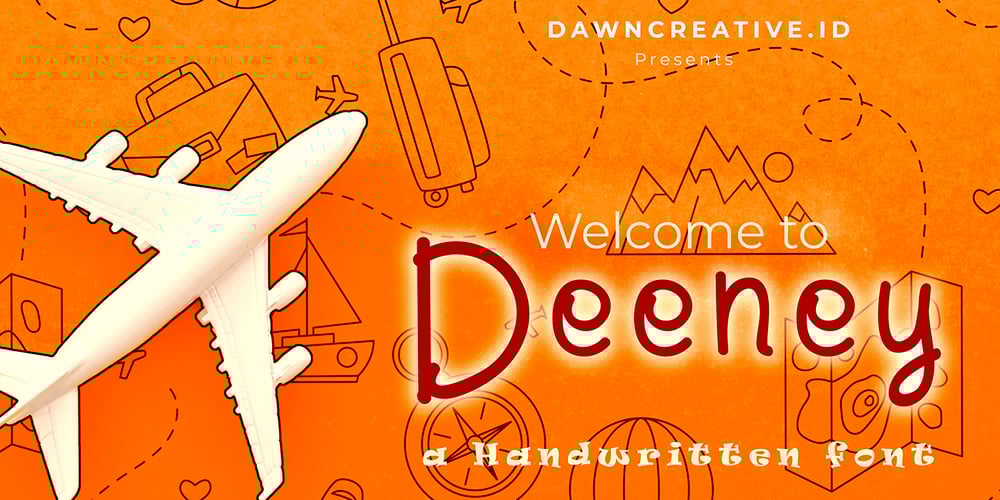
Deeney
Deeney font
Deeney Font Family was designed by Fajar Rachmadi Priyambada and published by DawnCreative.Id. Deeney contains 1 styles and family package options. Deeney is a handwritten style font. The natural form will make your work look more natural, like normal handwriting. This font is perfect for you to use in art, invitation, video, children’s books and more.